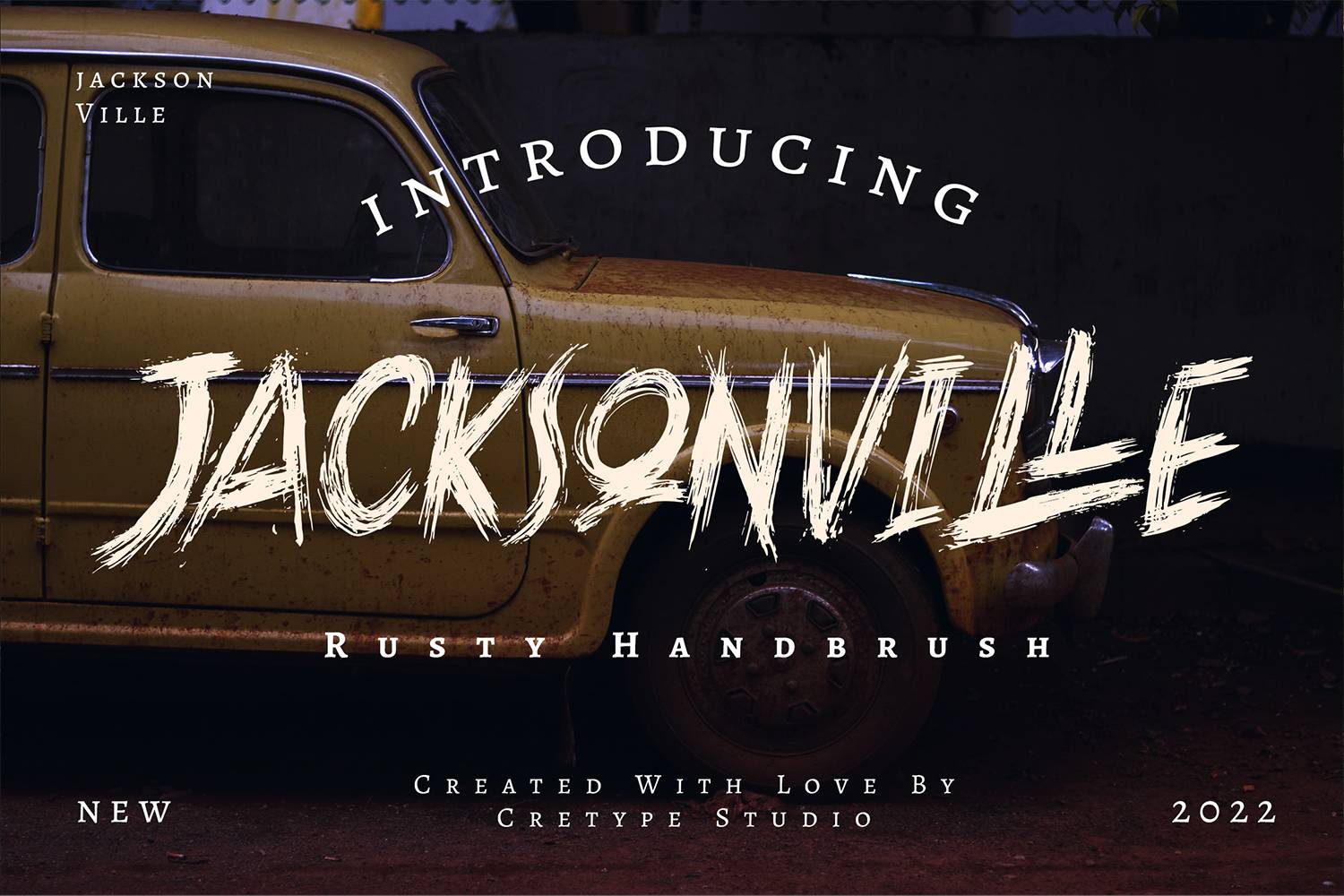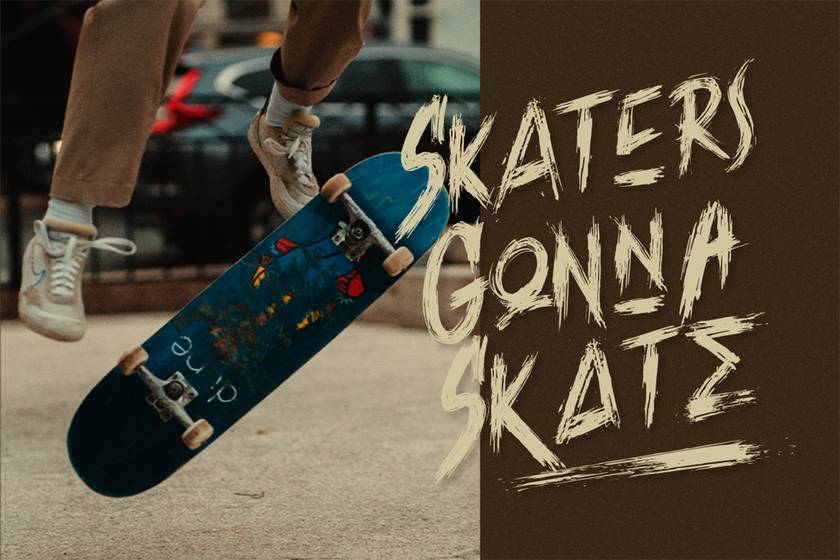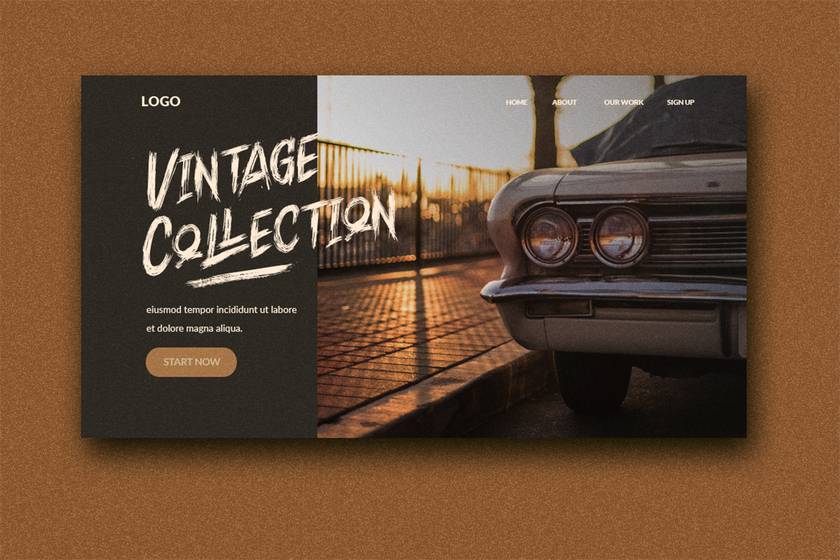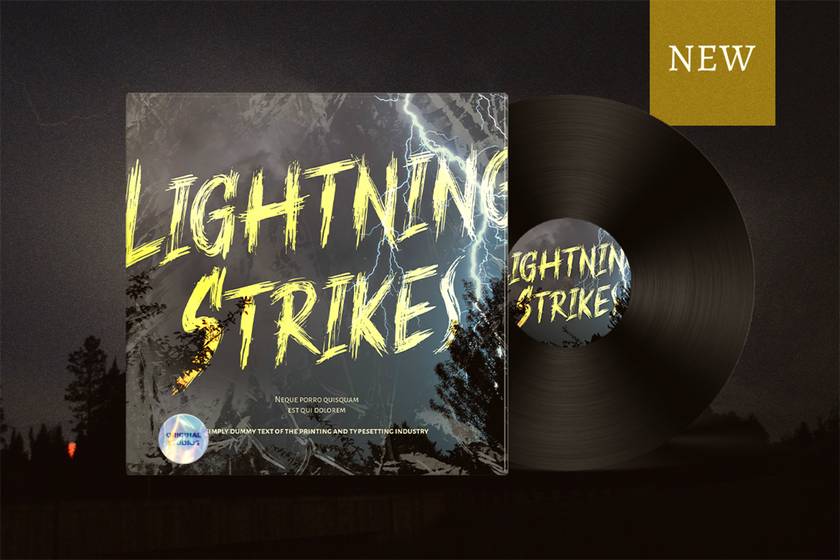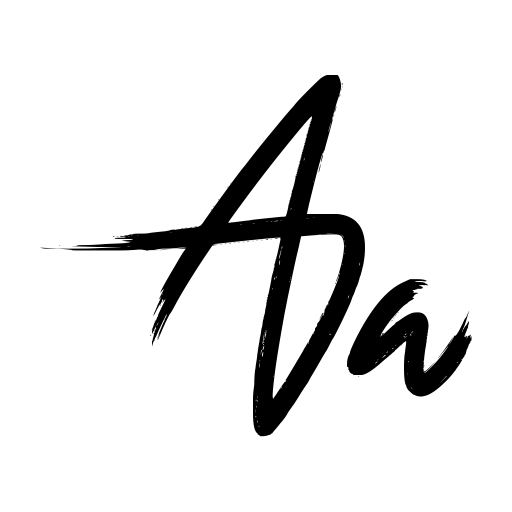
Jacksonville is a bold, hand-drawn sans serif font with a rough, brushstroke texture that gives it an energetic and edgy character. Its tall, narrow letterforms and uneven strokes create a dynamic and expressive feel, making it perfect for designs that want to convey creativity and a raw, artistic vibe. This font works well in headlines, posters, and branding projects that seek a striking, informal look.
Jacksonville Font
About Jacksonville Font
| Font family | Jacksonville Font |